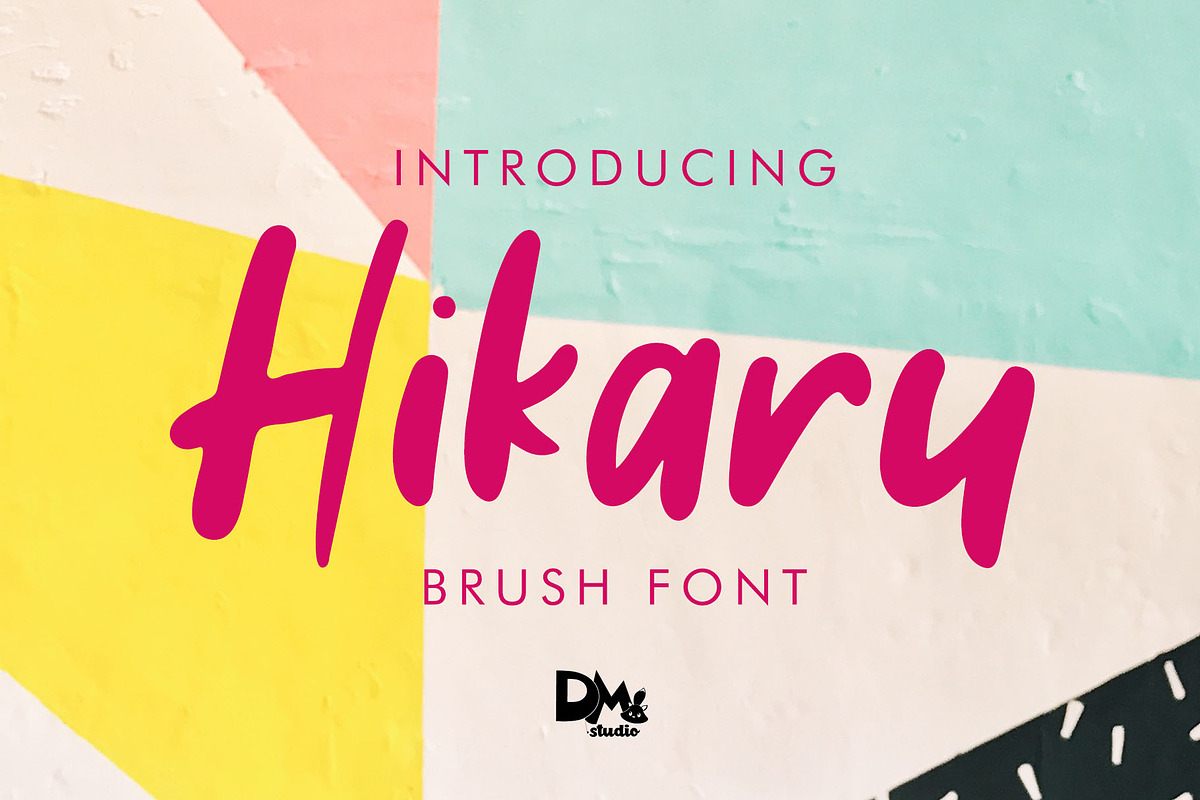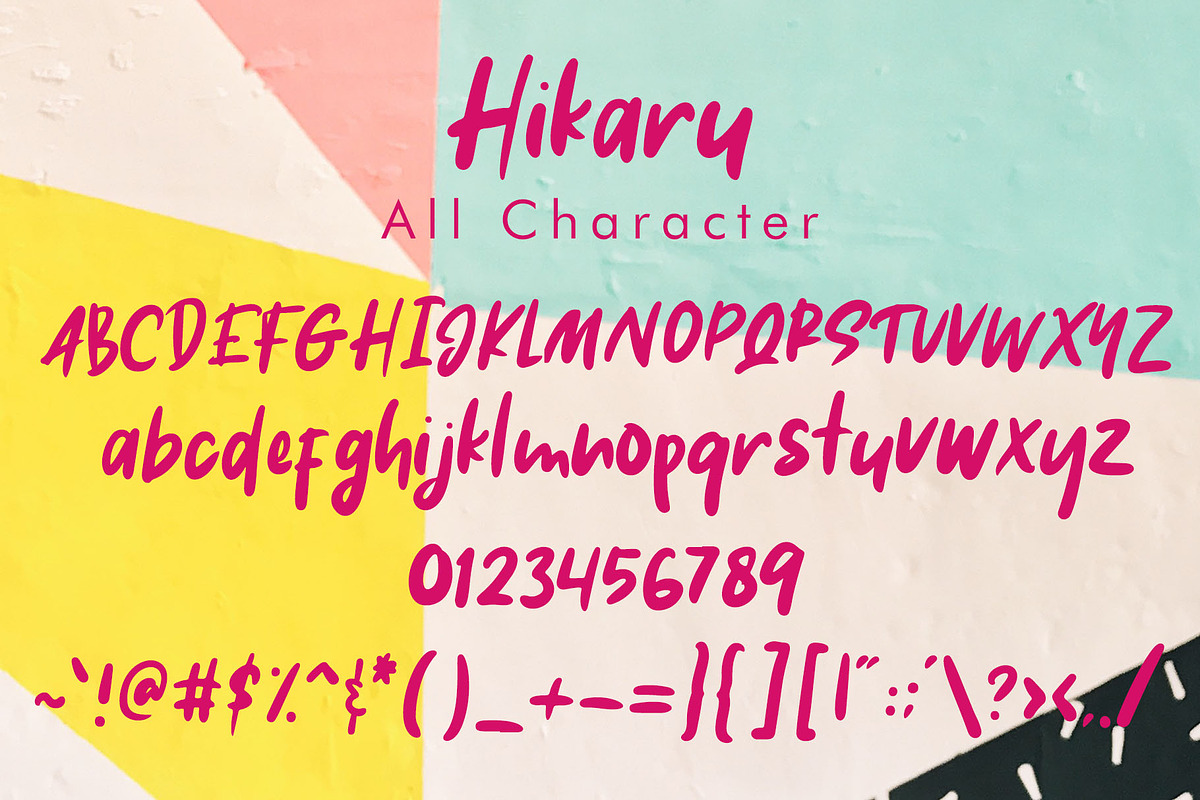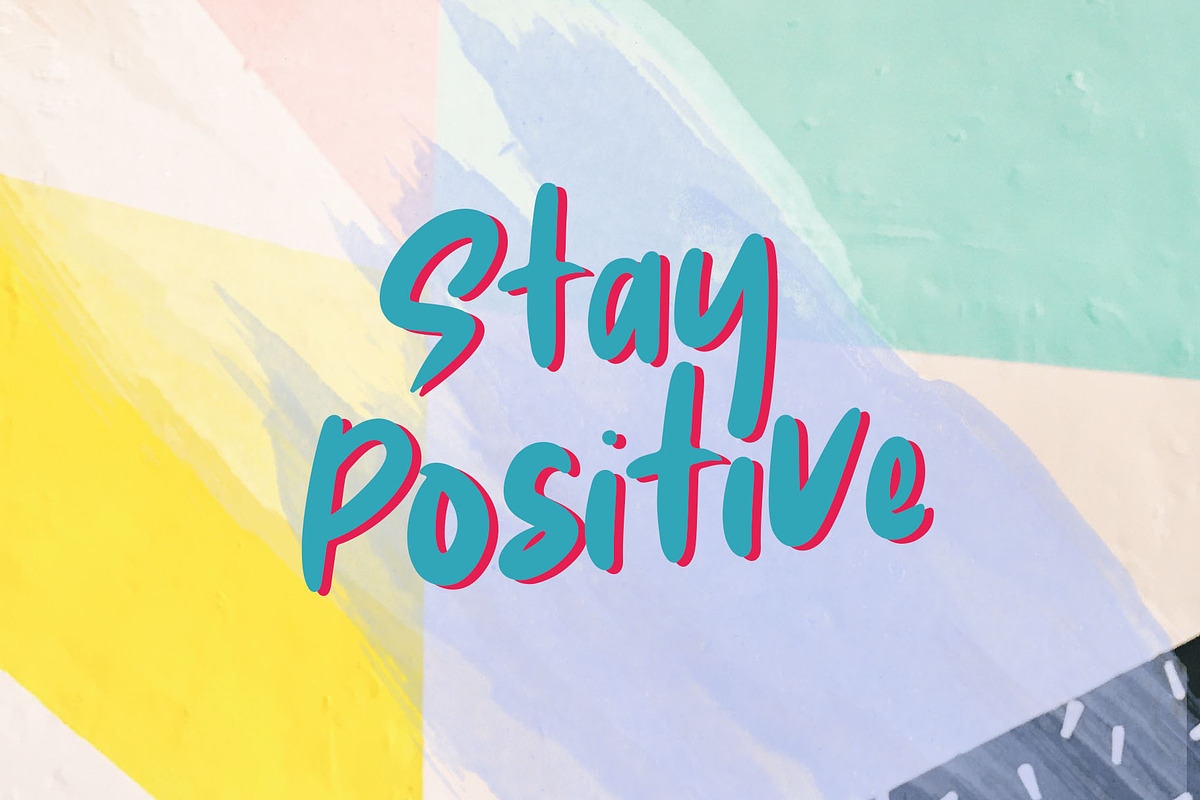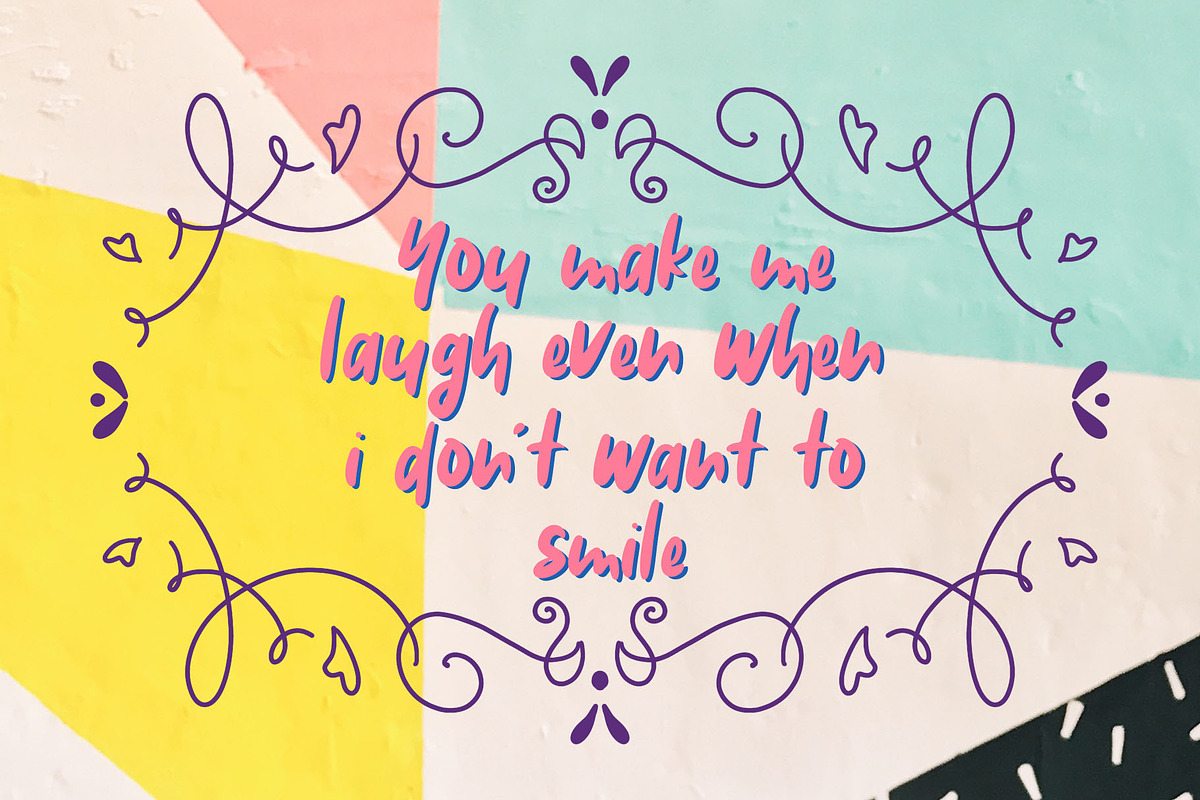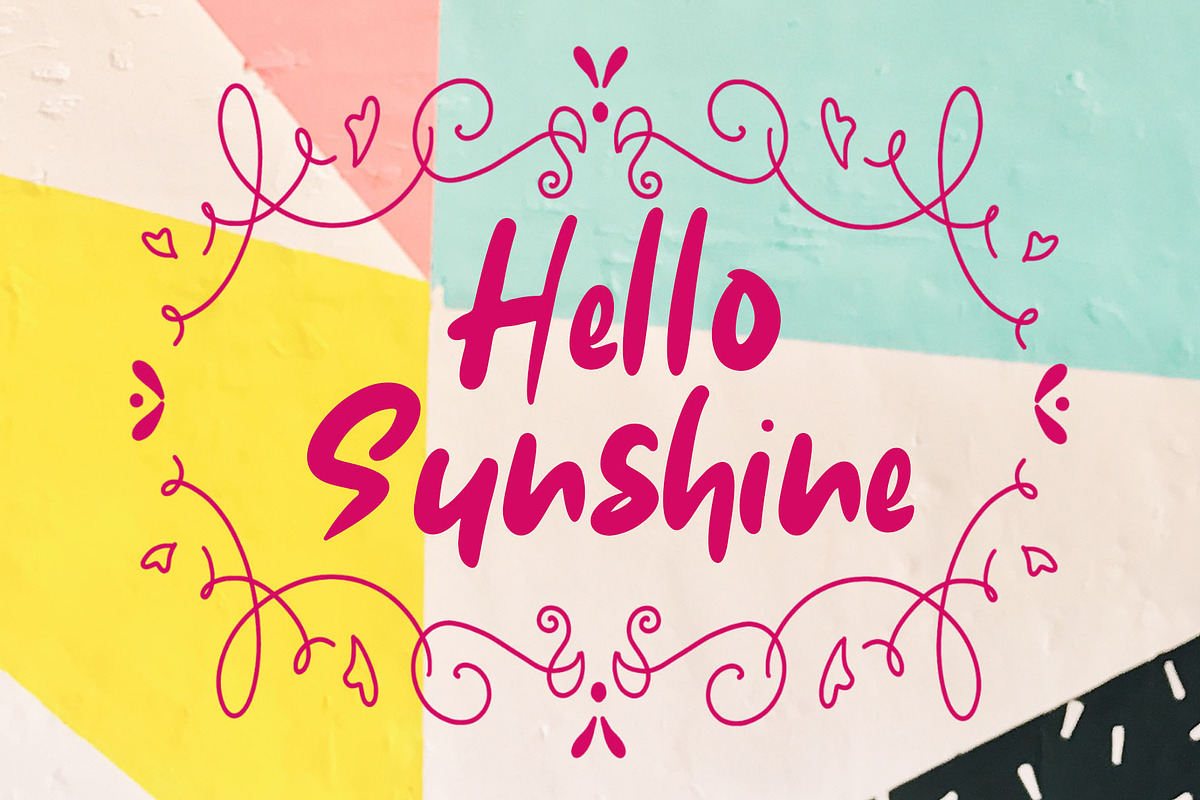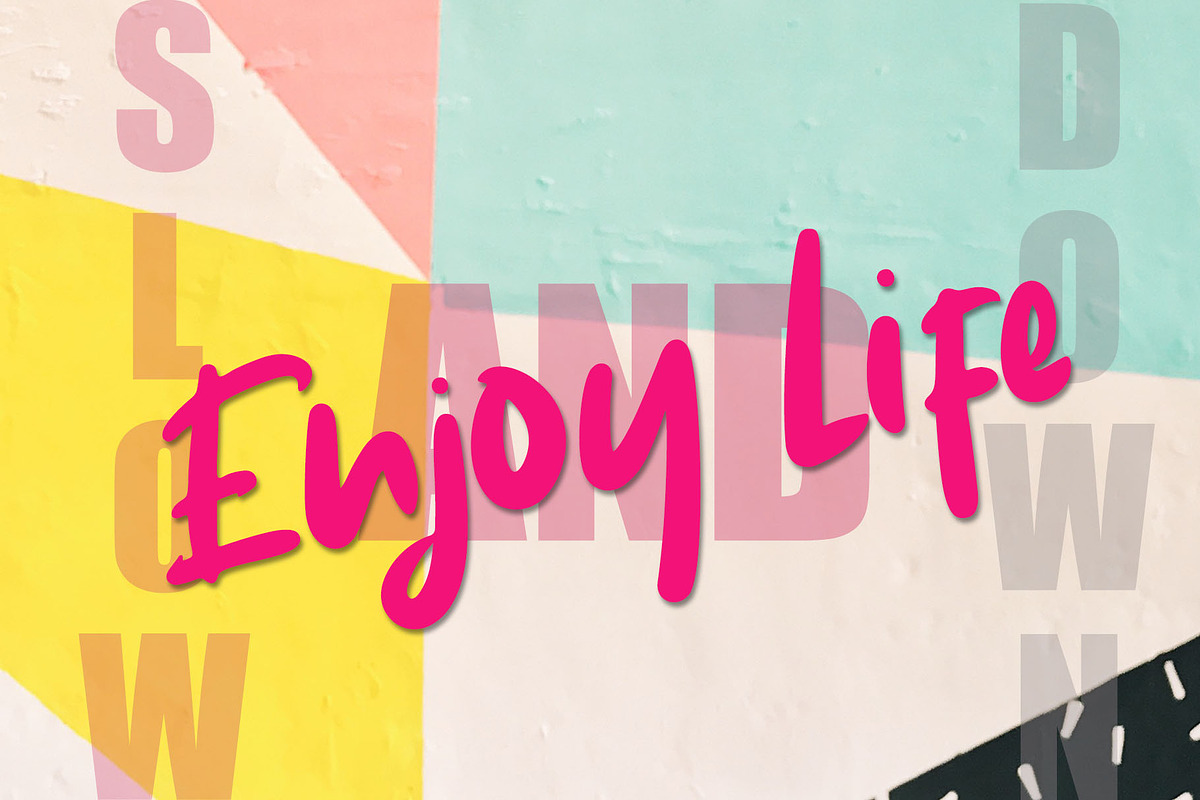
Hikaru - Brush Font
Introducing, Hikaru the whimsical handwritten brush font It will makes your design more charming and unique! Use it for your social media posts, t-shirt, quotes, label, and much more!
Uppercase, lowercase, numeric and symbols
Hikaru - Brush Font by Dm Studio fits naturally into Branding, posters, packaging, typography.